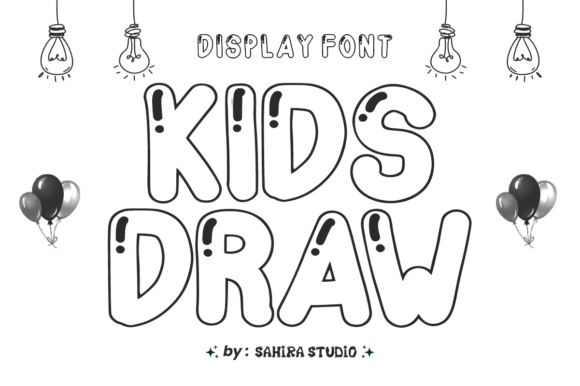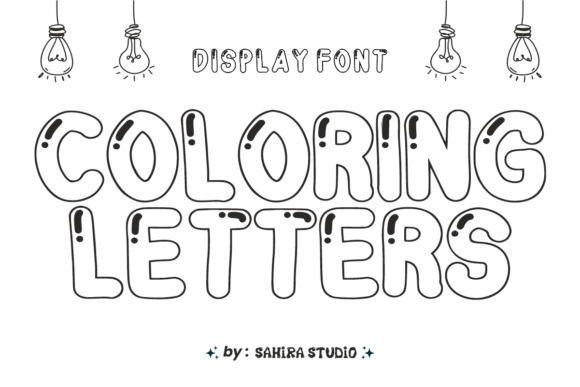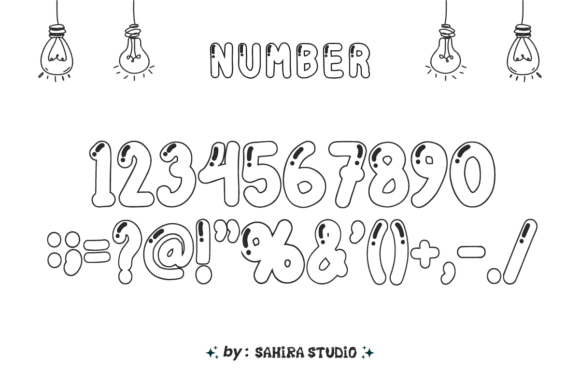
Unlock the Power of Whimsy with the Balloon Outline Font
Remember that magical moment when you stumbled upon the perfect font for your creative project? The one that brought your vision to life and made it truly special? We’re about to take you back to that moment with the Balloon Outline Font – a handcrafted, outline-style font that’s sure to captivate and inspire.
This versatile font is designed to elevate any creation, whether it’s a logo, greeting card, or t-shirt design. With its playful and whimsical touch, the Balloon Outline Font is a valuable addition to any designer’s library. Its potential to enhance any work makes it a must-have for creatives who want to add a unique twist to their projects.
Balloon Outline Font Key Features
- Font Family: Balloon Outline Font is a unique font family that offers a range of styles, including regular, bold, italic, and bold italic.
- Unique Characteristics: The Balloon Outline Font features a distinctive balloon-like outline design, adding a playful and whimsical touch to any text.
Balloon Outline Font Review
Overall, I think the Balloon Outline Font has some great features that make it a fun and unique addition to any design project. ✨ The font’s playful and whimsical feel is perfect for creating a lighthearted and approachable atmosphere.
- Great for titles and headings: The Balloon Outline Font is perfect for adding a pop of personality to titles and headings. The bold lines and rounded edges make it stand out and grab attention.
- Works well in digital design: The font is highly legible even at small sizes, making it a great choice for digital design projects such as social media graphics and website headers.
- Creative possibilities: The font’s versatility makes it suitable for a wide range of design projects, from children’s books to party invitations.
However, there are a few limitations to consider. ⚠️ The font can be a bit tricky to read at very small sizes, and the bold lines can sometimes make it difficult to pair with other fonts.
Overall, I think the Balloon Outline Font is a great addition to any designer’s toolkit. While it may have some limitations, its unique personality and versatility make it a great choice for a wide range of design projects.
Tip: Use the Balloon Outline Font in combination with colorful backgrounds to create visually appealing graphics.
Tip: Use the Balloon Outline Font to create stylized typography for your designs.
Tip: Use the Balloon Outline Font to add a playful touch to your presentations and documents.
The Balloon Outline Font is commonly used for:
- Wedding and birthday graphics
- Playful typography for social media posts
Remember to experiment with different font sizes, colors, and combinations to get the most out of the Balloon Outline Font.
Comic Sans MS is a sans-serif font known for its playful and casual look. It’s often used in informal documents, children’s books, and websites with a friendly tone. Compared to Balloon Outline Font, Comic Sans MS has a more rounded and softer appearance, making it suitable for projects that require a less formal feel.
Great Vibes is a script font that mimics handwriting. It’s often used in invitations, wedding cards, and other creative projects where a personal touch is needed. Compared to Balloon Outline Font, Great Vibes has a more elegant and refined appearance, making it suitable for projects that require a touch of sophistication.